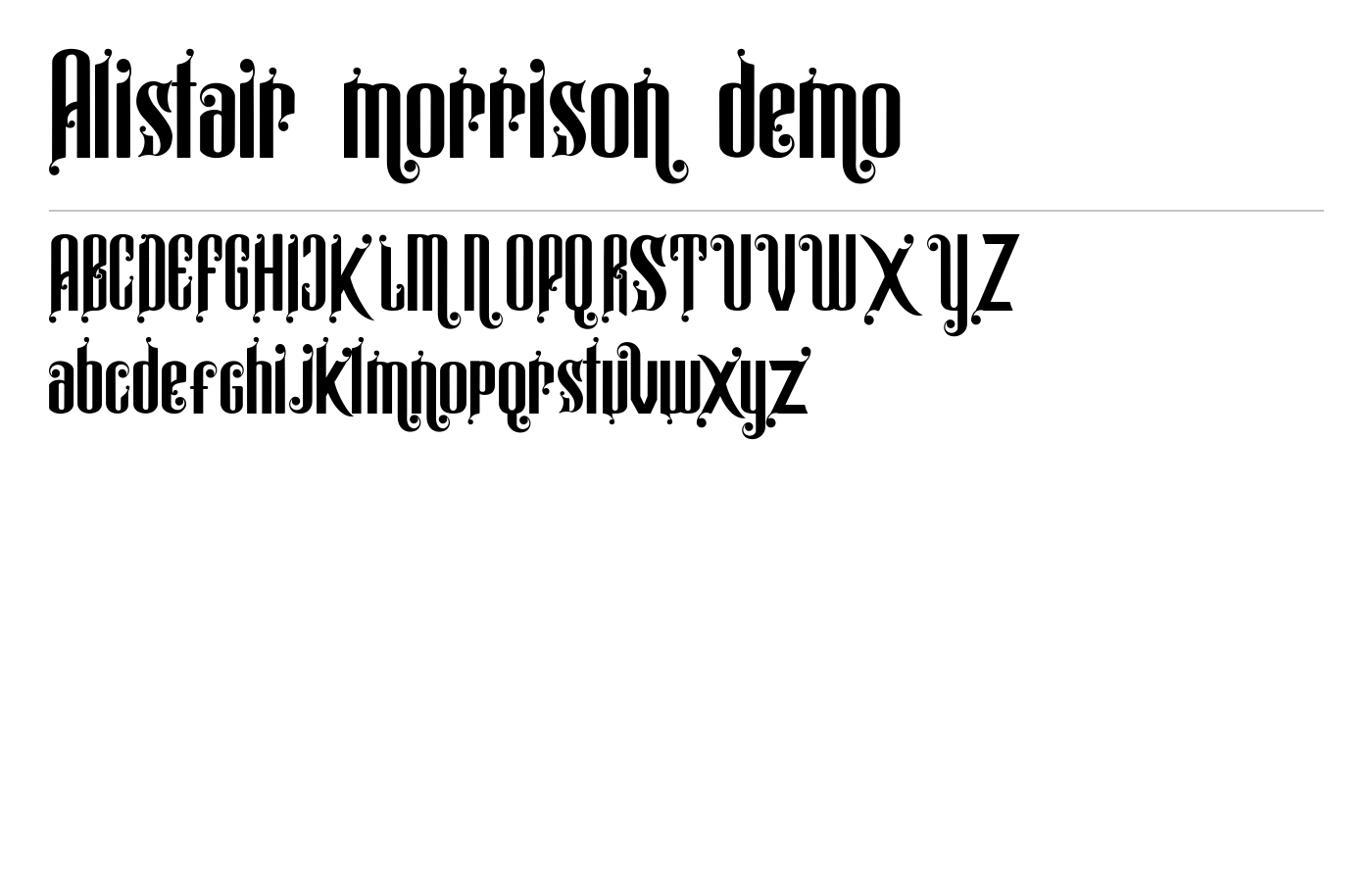
Alistair Morrison Demo is a highly decorative serif font with a condensed structure and striking vertical emphasis, featuring playful teardrop-shaped terminals that add a whimsical yet elegant flair. Its tall, narrow letterforms and unique flourishes make it ideal for eye-catching headlines, branding, and artistic projects that seek a blend of vintage charm and modern sophistication. This font works best in display contexts where its intricate details can stand out without sacrificing readability.